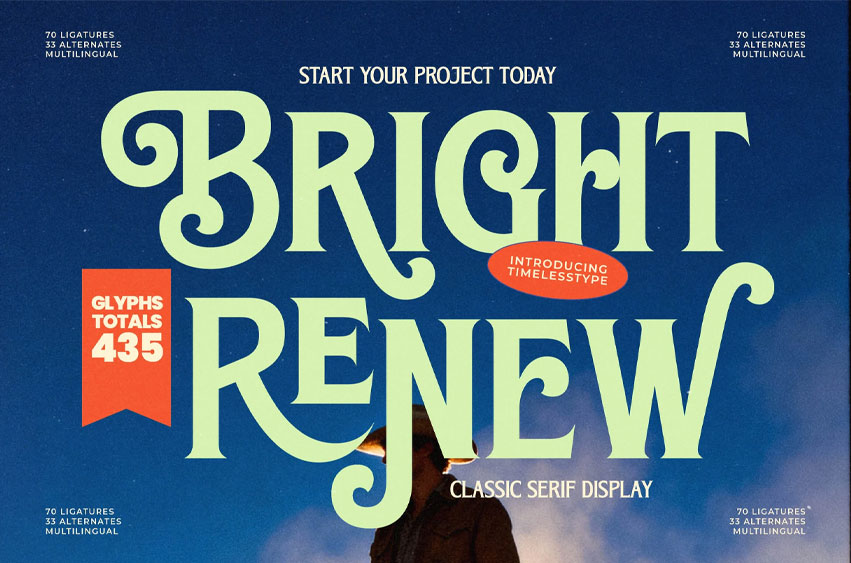
Bright Renew Font
Bright Renew Font elevate branding, editorial layouts, packaging, posters, and typographic headlines. With 70 ligatures, 33 stylistic alternates, and full multilingual support, this typeface gives designers a powerful toolkit to craft standout visuals that balance retro charm with modern sophistication.
Its sculpted serifs, sweeping terminals, and high-impact character shapes make Bright Renew ideal for premium labels, campaigns, film titles, scrapbook-inspired graphics, and bold typographic compositions seeking a timeless yet contemporary feel.